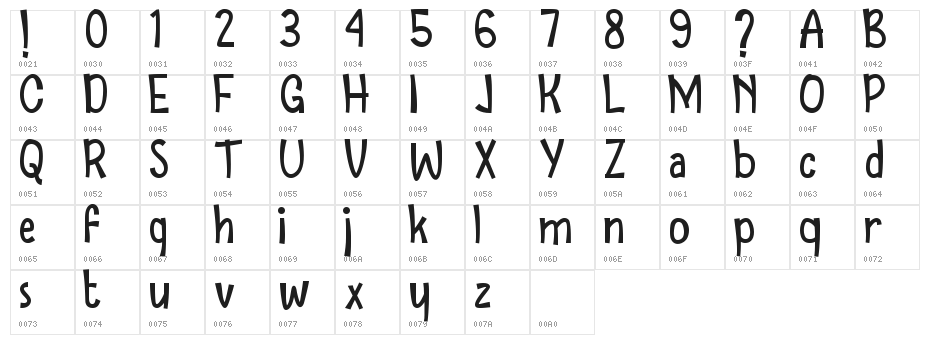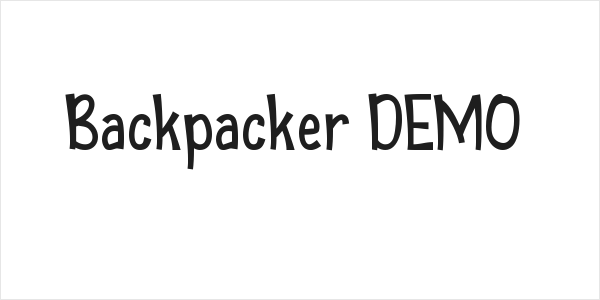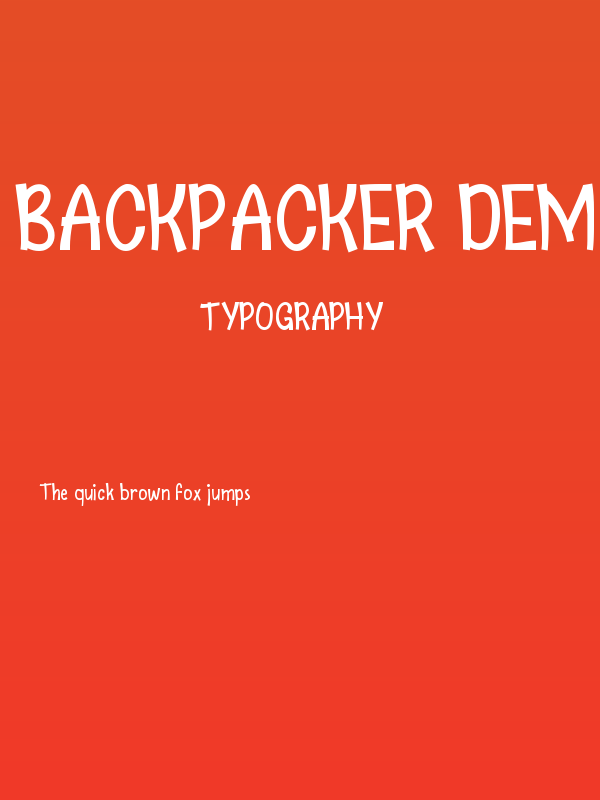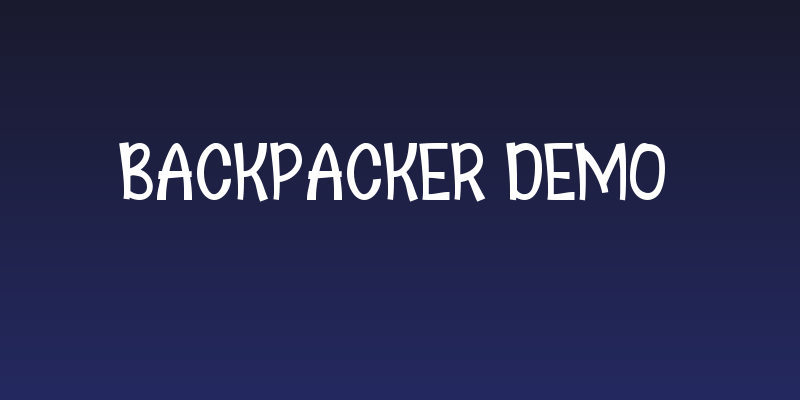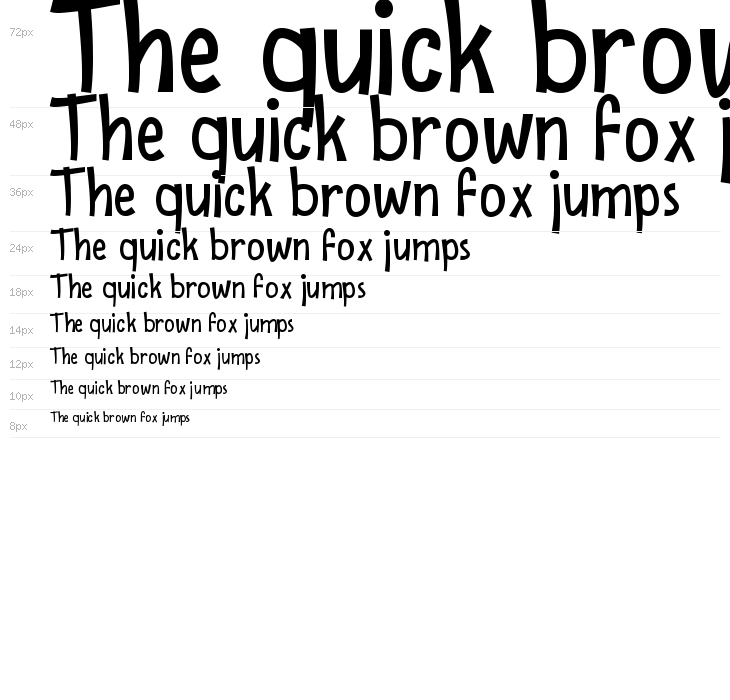
Backpacker DEMO Font
Backpacker DEMO Description
This font exudes a playful and informal vibe, characterized by its hand-drawn appearance and slightly irregular letterforms. The uppercase and lowercase letters are bold and have a whimsical quality, with varying stroke widths that add to its casual charm. The numbers and special characters maintain this playful style, making it suitable for creative and fun projects. Its unique style is eye-catching and can bring a sense of joy and spontaneity to any design.
Proposed ProjectsIdeal for children's books, playful branding, casual invitations, and creative posters.